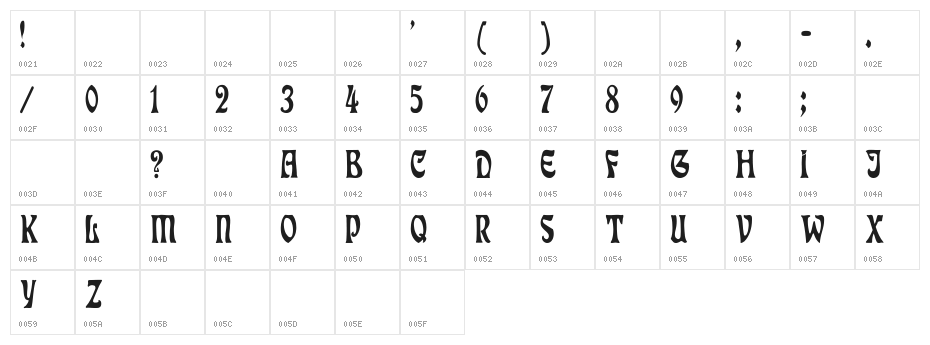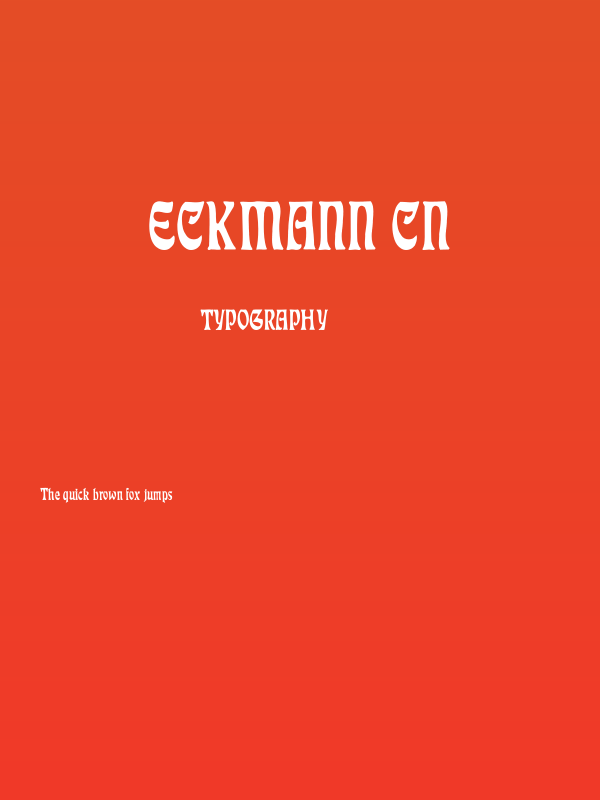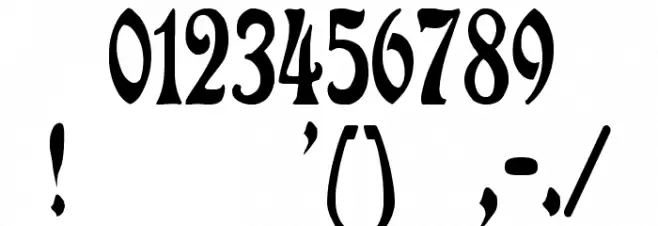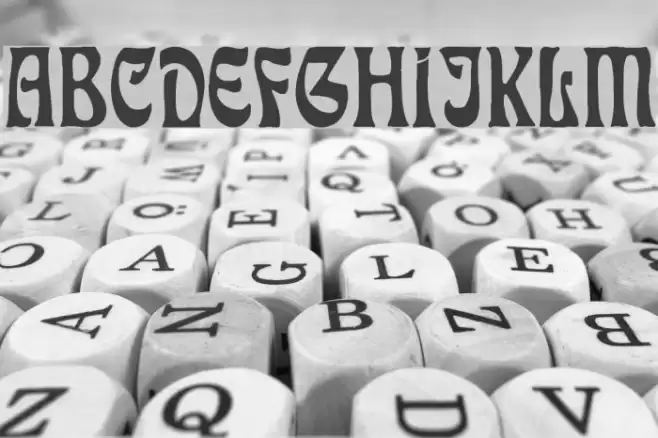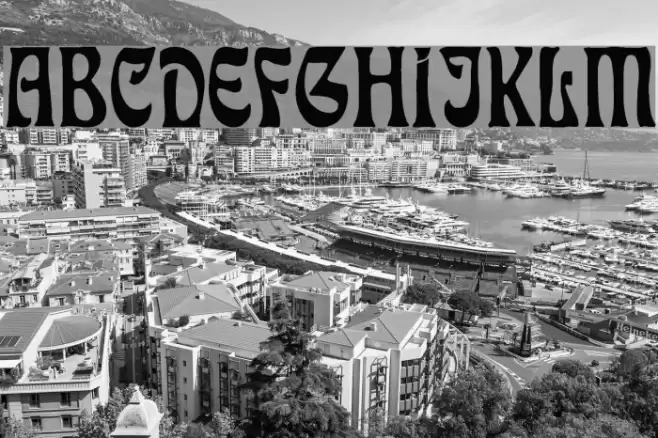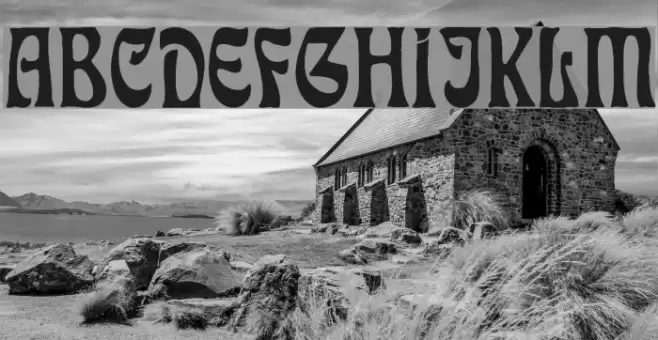
Eckmann Cn Font
Eckmann Cn Description
This font features a unique blend of traditional and modern elements, characterized by its bold, flowing strokes and distinctive curves. The uppercase letters exhibit a strong presence with their thick lines and slightly condensed form, while the lowercase letters maintain a harmonious balance with a more fluid and organic feel. The numerals are consistent with the overall style, offering a bold and easily readable appearance. Special characters are crafted with the same attention to detail, ensuring a cohesive look across all glyphs. This font's artistic flair makes it suitable for creative projects that require a touch of elegance and sophistication.
| Width | Condensed |
| Overall Style | Artistic |
| Use Case | Logos, Headlines, Posters |
| Proposed Projects | Ideal for branding, poster design, artistic book covers, and creative invitations. |